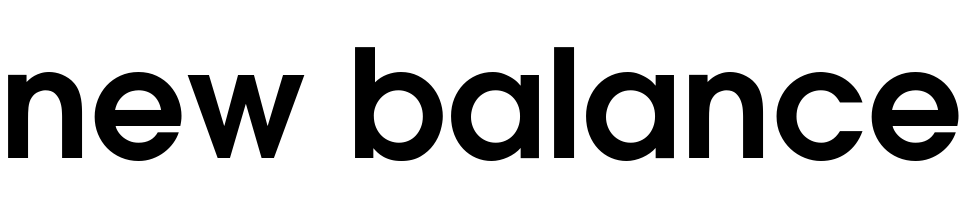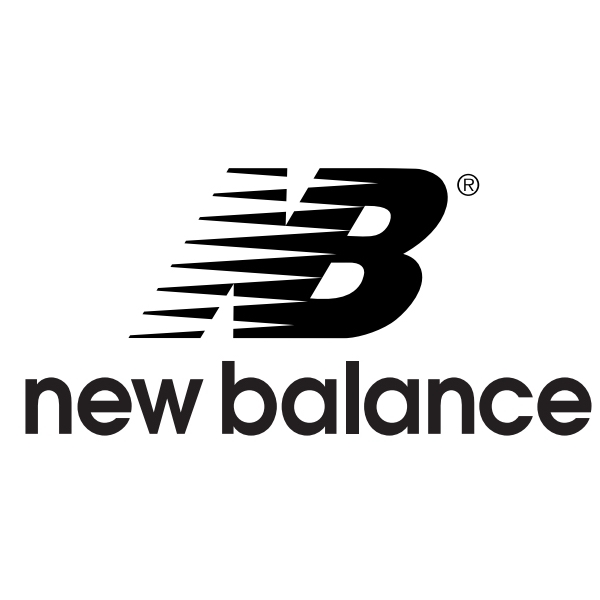
New Balance Font
ApparelThe New Balance is a leading sports footwear and apparel brand known for its innovative technologies and high-quality products founded in 1906.
The New Balance logo is very similar to ITC Avant Garde Gothic Demibold. Herb Lubalin developed the ITC Avant Garde Gothic logo concept and its companion headline typeface, and later in partnership with Tom Carnase develop it into a full fledge typeface. More details about it can be found here.